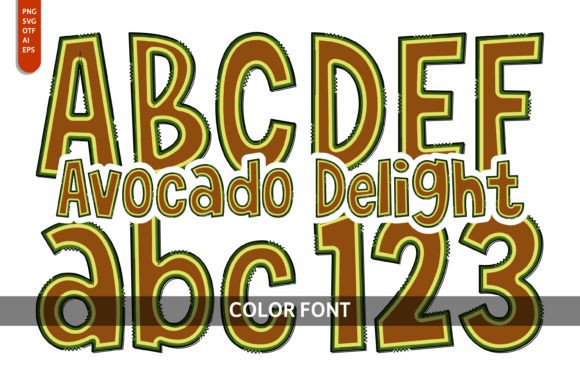
Discover the Whimsical World of Avocado Delight Font
I’ll never forget the time I was working on a children’s book project, and my client asked me to create a custom font that would make their story come alive. I spent hours scouring the internet for the perfect font, but nothing seemed quite right. That’s when I stumbled upon the Avocado Delight font, and it was love at first sight! ✨
This charming font has since become a staple in my design toolkit, and I’m excited to share its magic with you. In this article, we’ll explore the world of Avocado Delight, its features, and how to make the most of it in your designs.
Avocado Delight Font: A Personal Review
- ✨ Whimsical and playful feel that’s perfect for children’s books, posters, and invitations
- ✅ Easy to read, even for young audiences
- 🎨 Color font (Opentype-SVG) that adds an extra layer of creativity to your designs
While Avocado Delight is an amazing font, there are a few things to keep in mind:
- 🤔 May require some experimentation to get the most out of its OpenType features
The Story Behind Avocado Delight Font
Avocado Delight was designed by a talented font creator who wanted to bring a touch of whimsy to the world of typography. Inspired by the playful and creative world of children’s books, Avocado Delight is the perfect font for designers who want to add a dash of fun to their work.
| Font Name | Avocado Delight Font |
| Author | Imagination Switch |
| What file type is Avocado Delight font? | Avocado Delight is a color font (Opentype-SVG). |